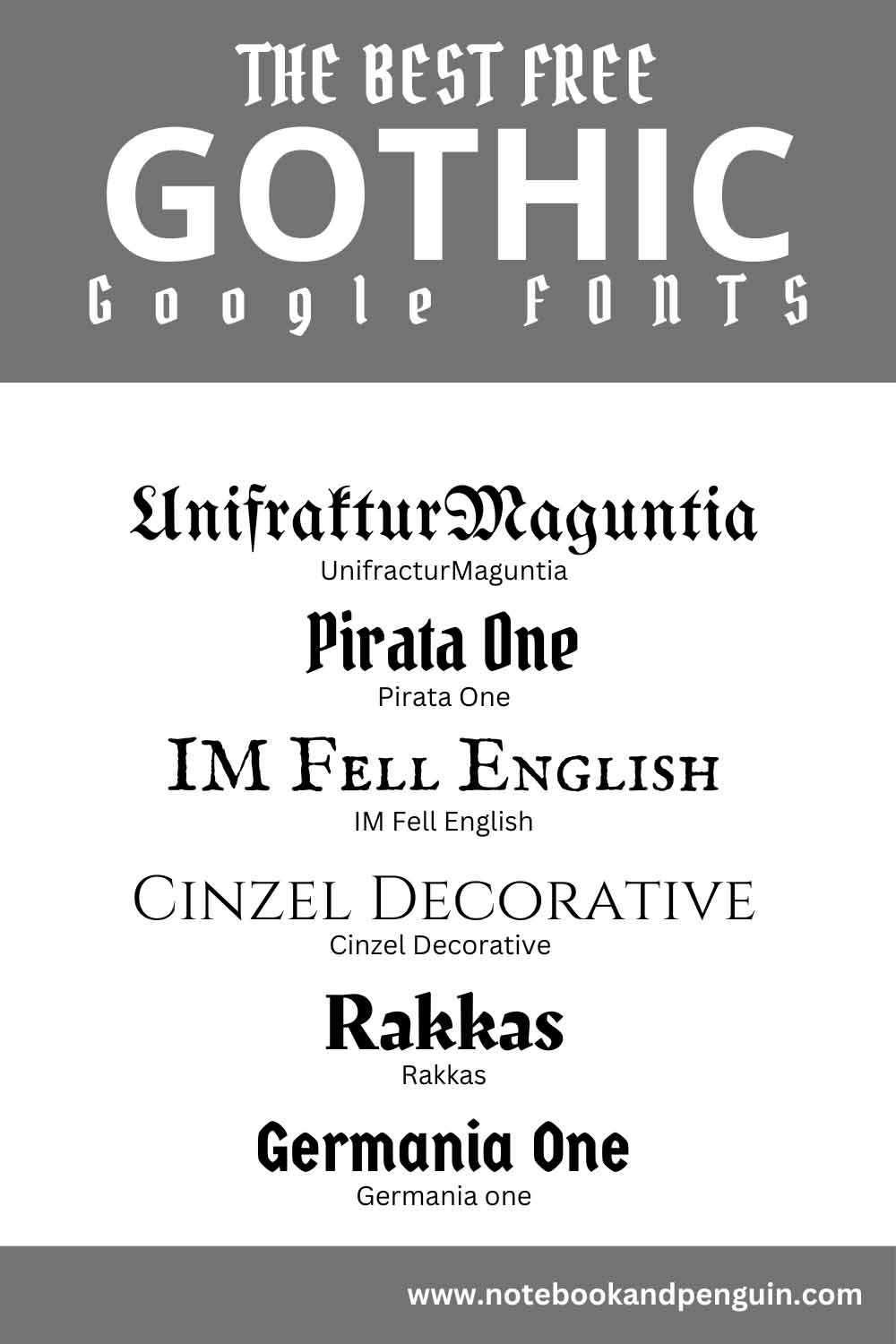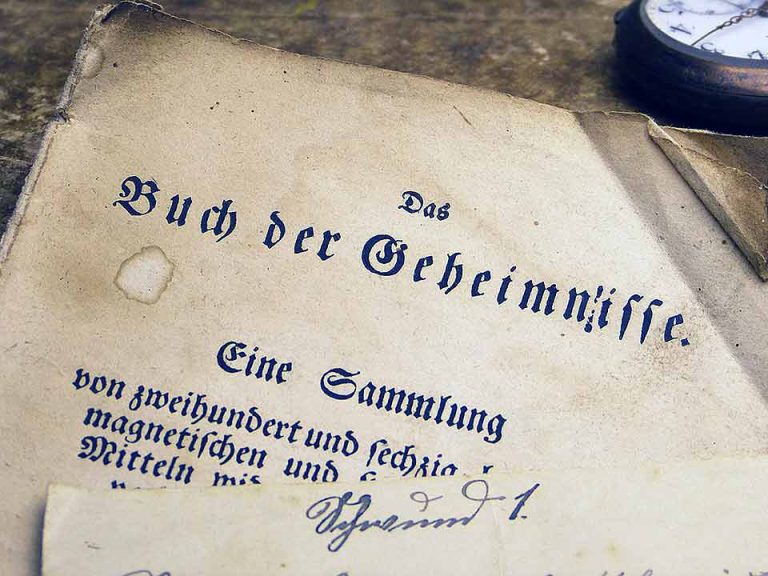
Old English, Blackletter, and Gothic fonts capture the essence of medieval manuscripts, calligraphy, and architectural engravings. By using these old-style fonts when you design planners or when you create spreads for your journals or designs, you can infuse your work with an aura of historical grandeur and mystery!
What Are Old English, Blackletter, And Gothic Fonts?
Old English Fonts, along with Blackletter fonts and Gothic fonts draw their inspiration from medieval Europe and the fonts that were used in medieval documents, books, and religious texts – You would be forgiven for thinking about knights, castles, and ancient manuscripts being read by flickering candlelight when seeing these old-fashioned fonts!
Old English, Blackletter & Gothic Google Font Ideas
UnifrakturCook
UnifrakturMatuntia
Grenze
Genze Gotisch
Medieval Sharp
Astloch Gothic
Bokor
Nova Cut
Trade Winds
Pirata One
Textura
IM Fell
Jim Nightshade
Eagle Lake
New Rocker
Uncial Antiqua
Metamorphous
Germania One
Rakkas
Almendra, Almendra Display, Almendra SC
Cinzel Decorative
Cormorant Unicase
Inknut Antiqua
Calligraphic Old English & Gothic Fonts
Calligraphic and scripting fonts work really well if you are trying to capture the essence of old-world typography. Below are a few examples to get you started.
Beth Ellen
Windsong
Mea Culpa
My Soul
Ruthie
Lovers Quarrel
Meddon
Monsieur La Doulaise
Seaweed Script
Fasthand
Ballet
Conclusion